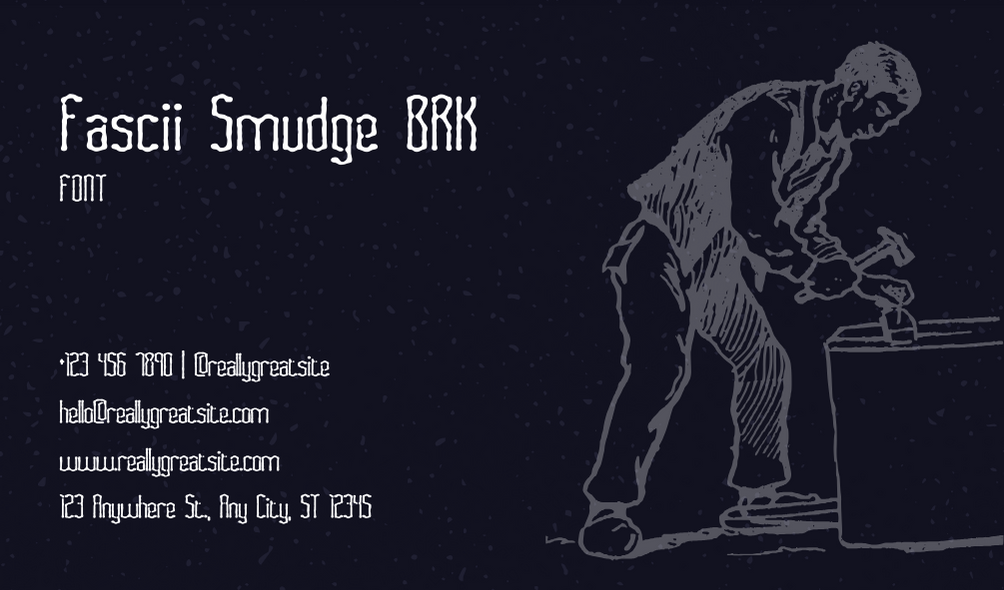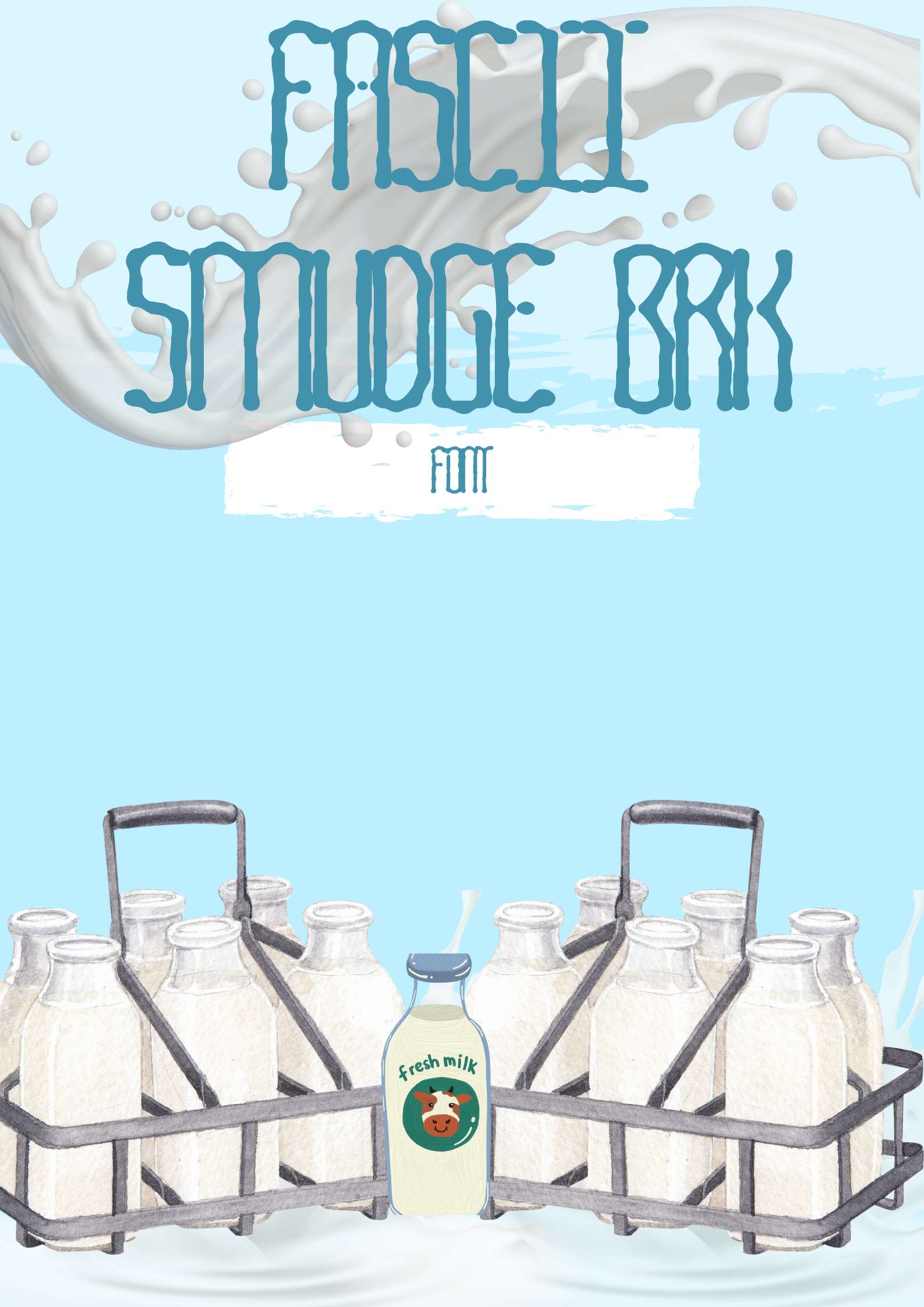
Fascii Smudge BRK is a fun font that is perfect for any design project. It is free for personal use and was designed by ?NIGMA FONTS - Brian Kent.The font subfamily is Regular.